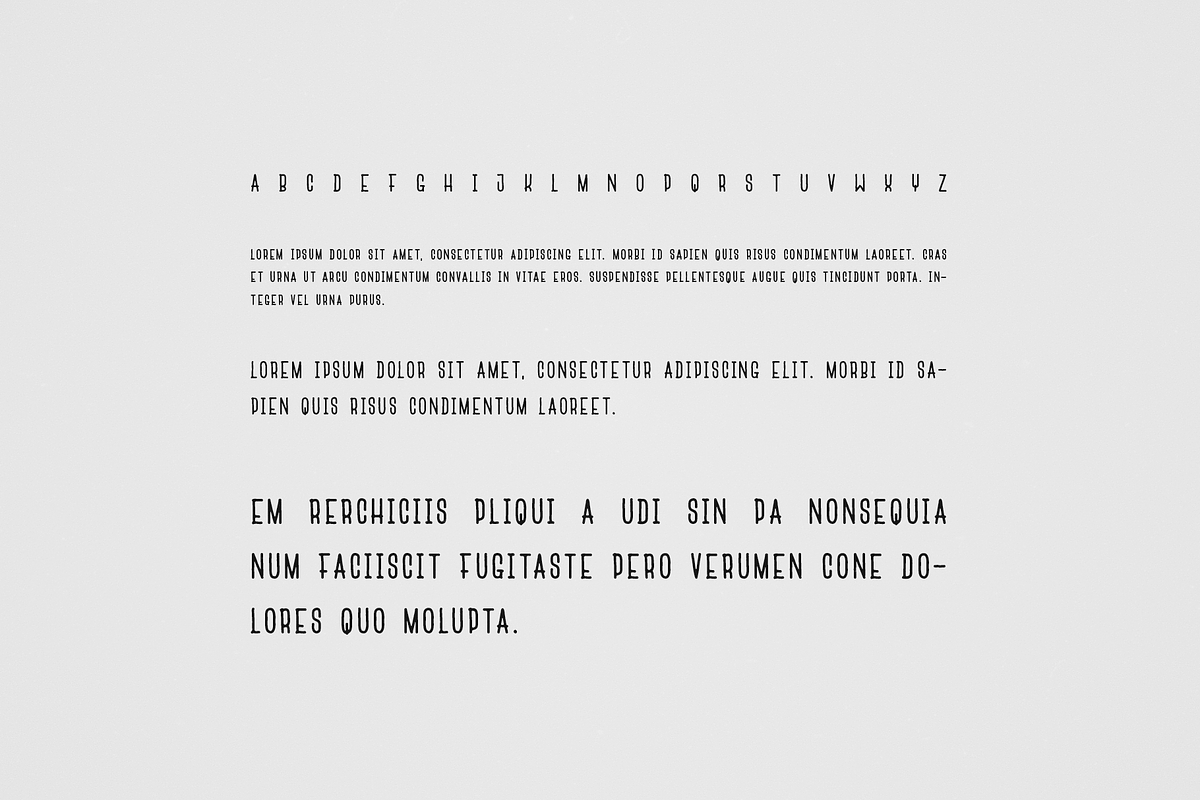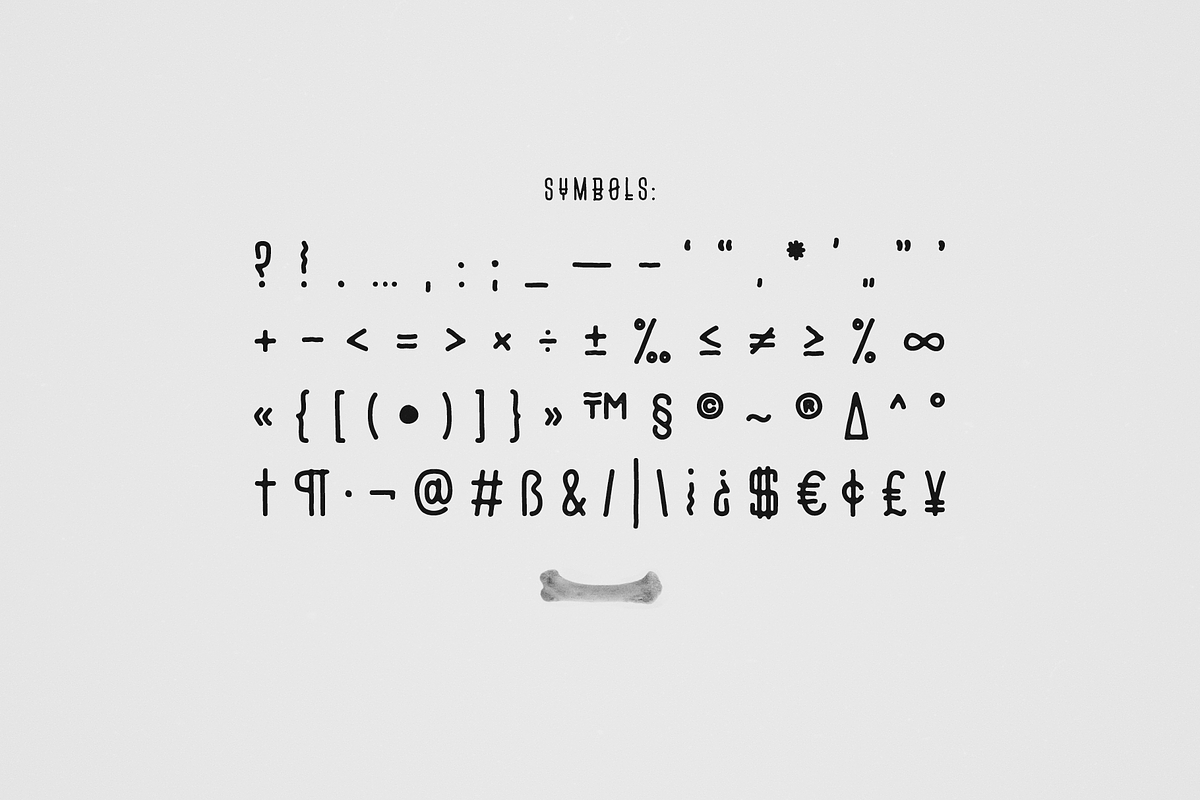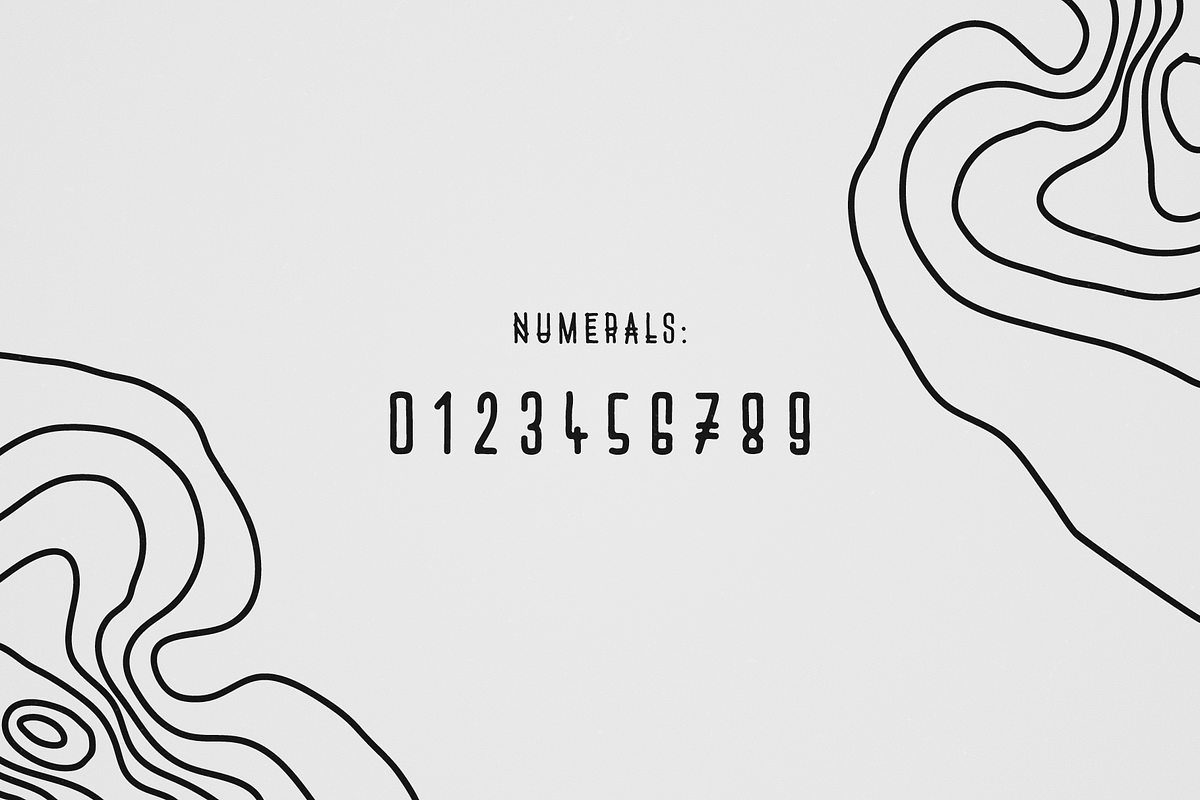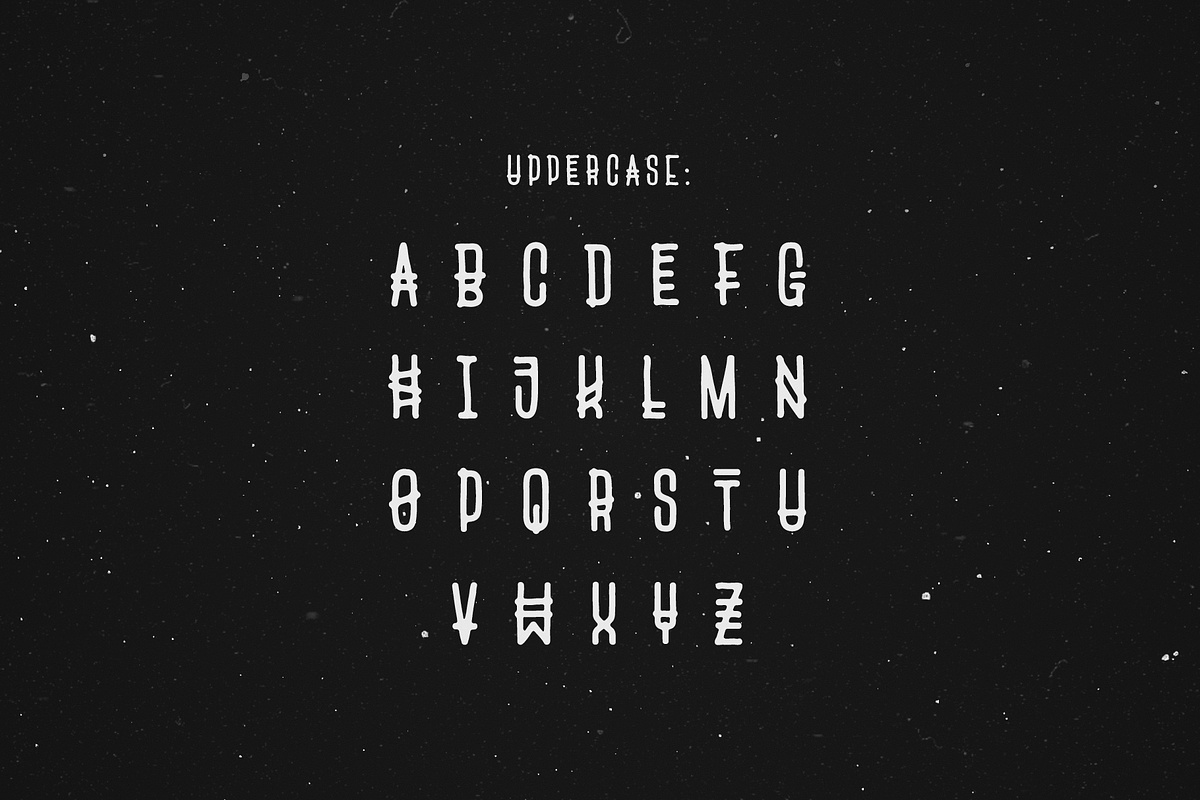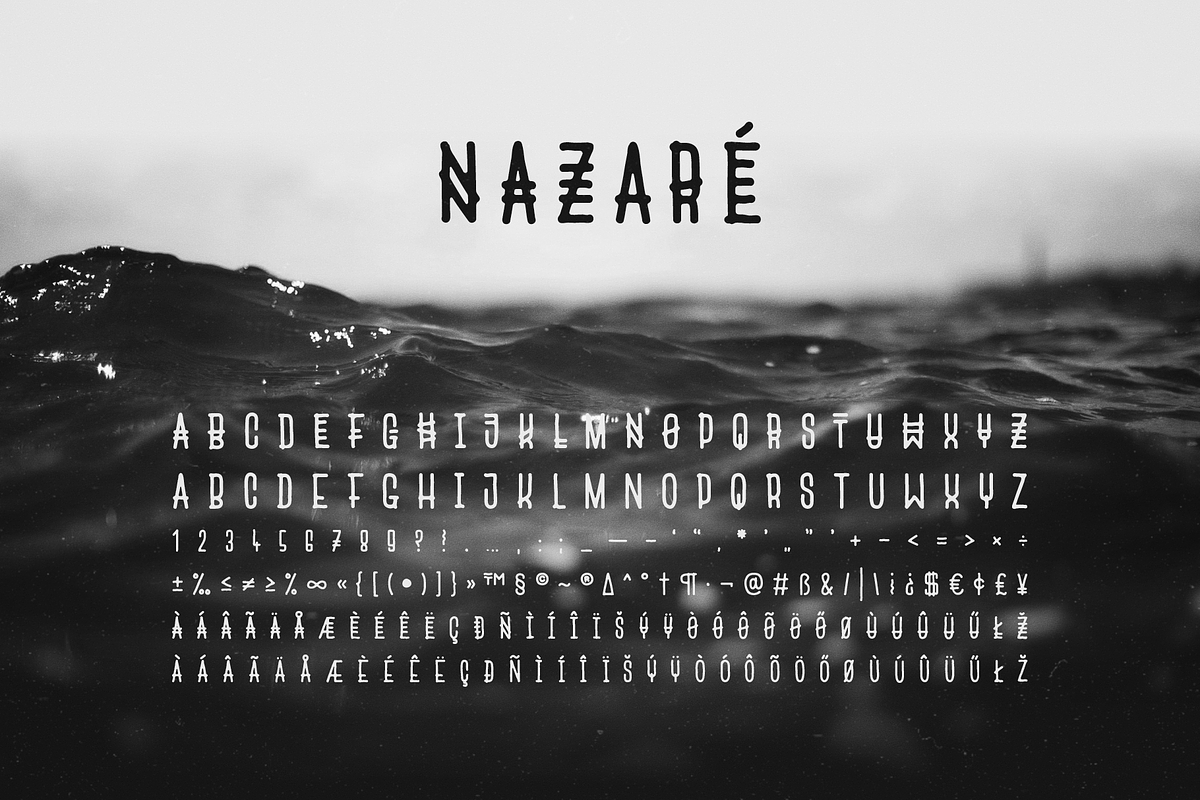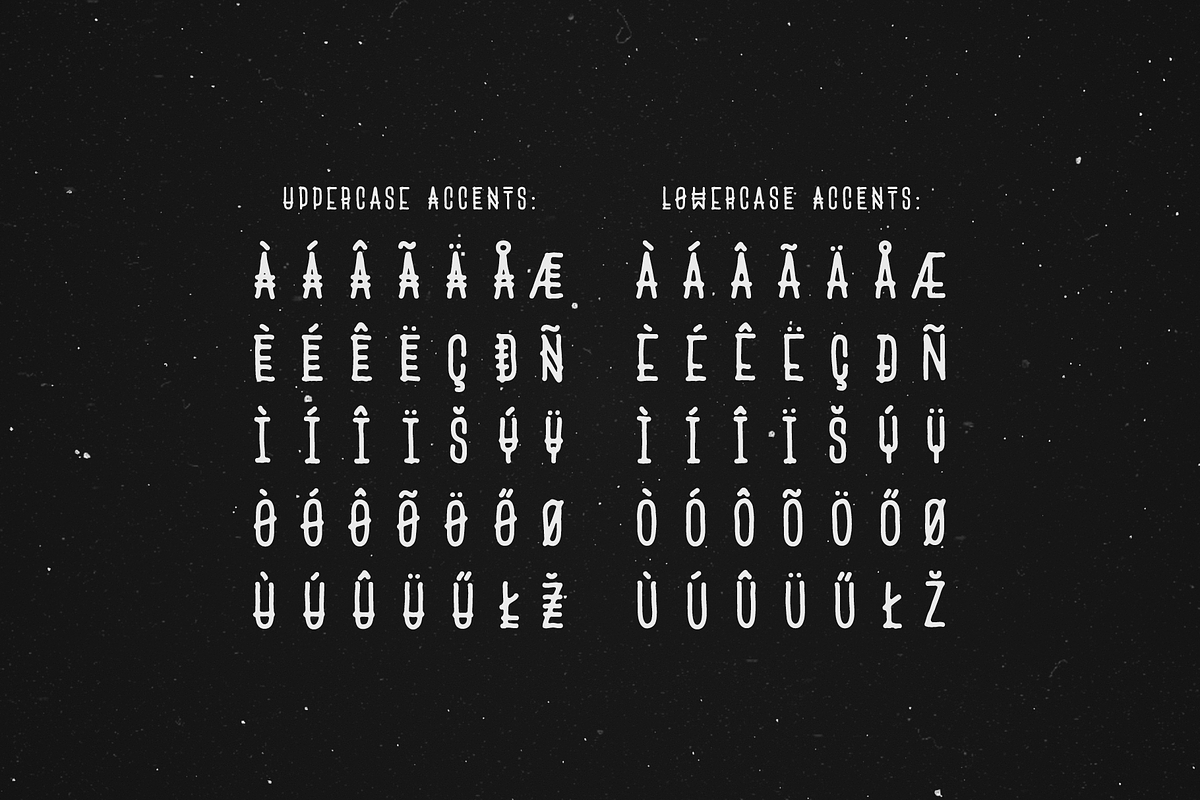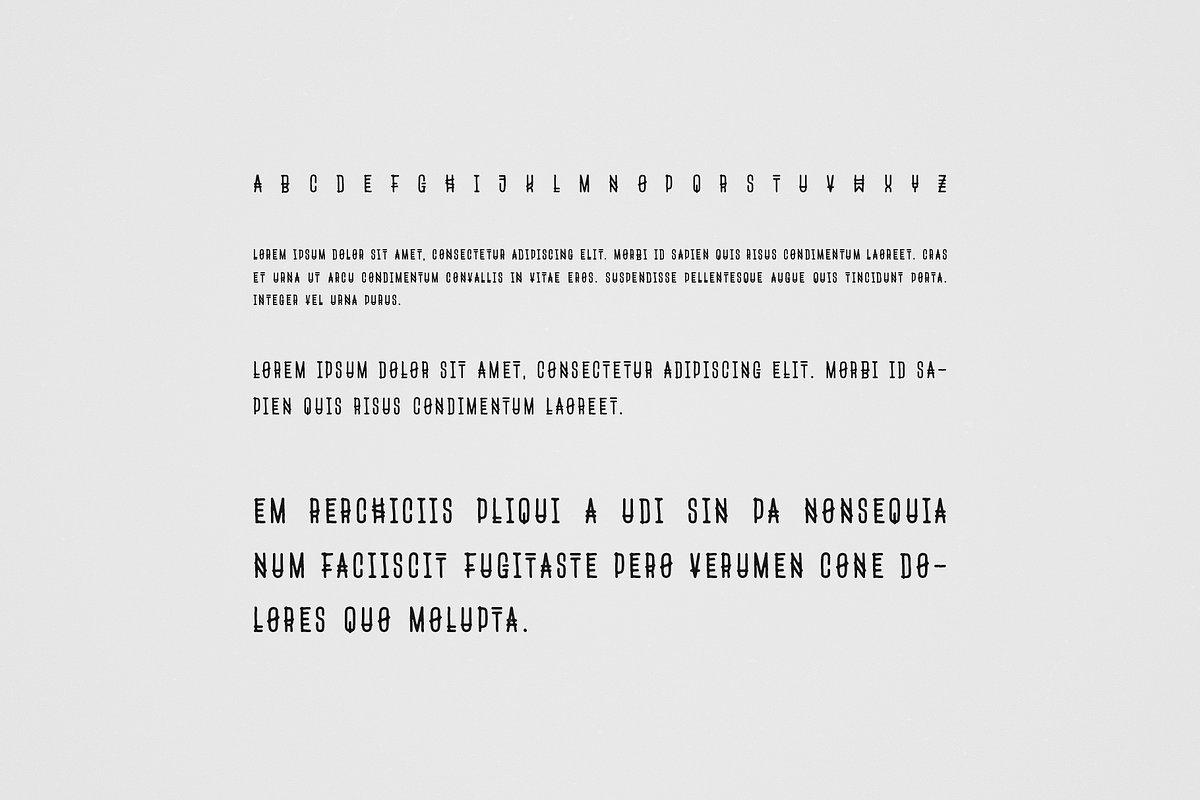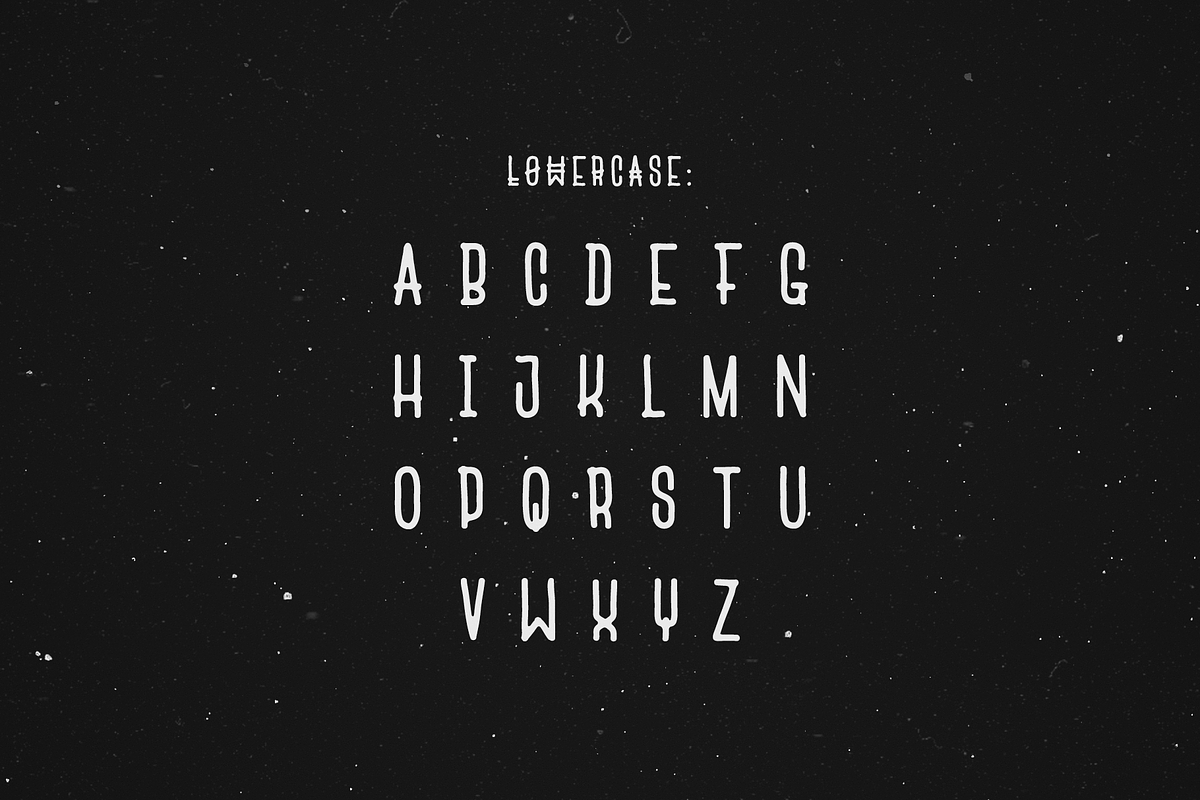
Nazare font
Nazaré is a font inspired by the town of the same name in Portugal. It's a condensed uppercase font with hand drawn lines, roundings and a bit of a tribal touch. The lowercase characters are simpler forms of the uppercase ones, enabling to add variation to the text when the two are mixed, leading to a natural hand drawn feel. All the letters are uniquely drawn, so if you're looking for more variations, you can make use of the accented characters too.
The town of Nazaré is famous for some of the world's highest waves, some as high as 23m, at this place you can really feel the shear force of nature from first hand. As you watch the raging ocean, you feel oddly one with mother nature as the incredibly high waves take your imagination back to prehistoric times, it is really a unique and uplifting experience.
- It's a condensed uppercase font with hand drawn lines, roundings and a bit of a tribal touch.
- The lowercase characters are simpler forms of the uppercase ones, enabling to add variation to the text when the two are mixed, leading to a
- All the letters are uniquely drawn, so if you're looking for more variations, you can make use of the accented characters too.